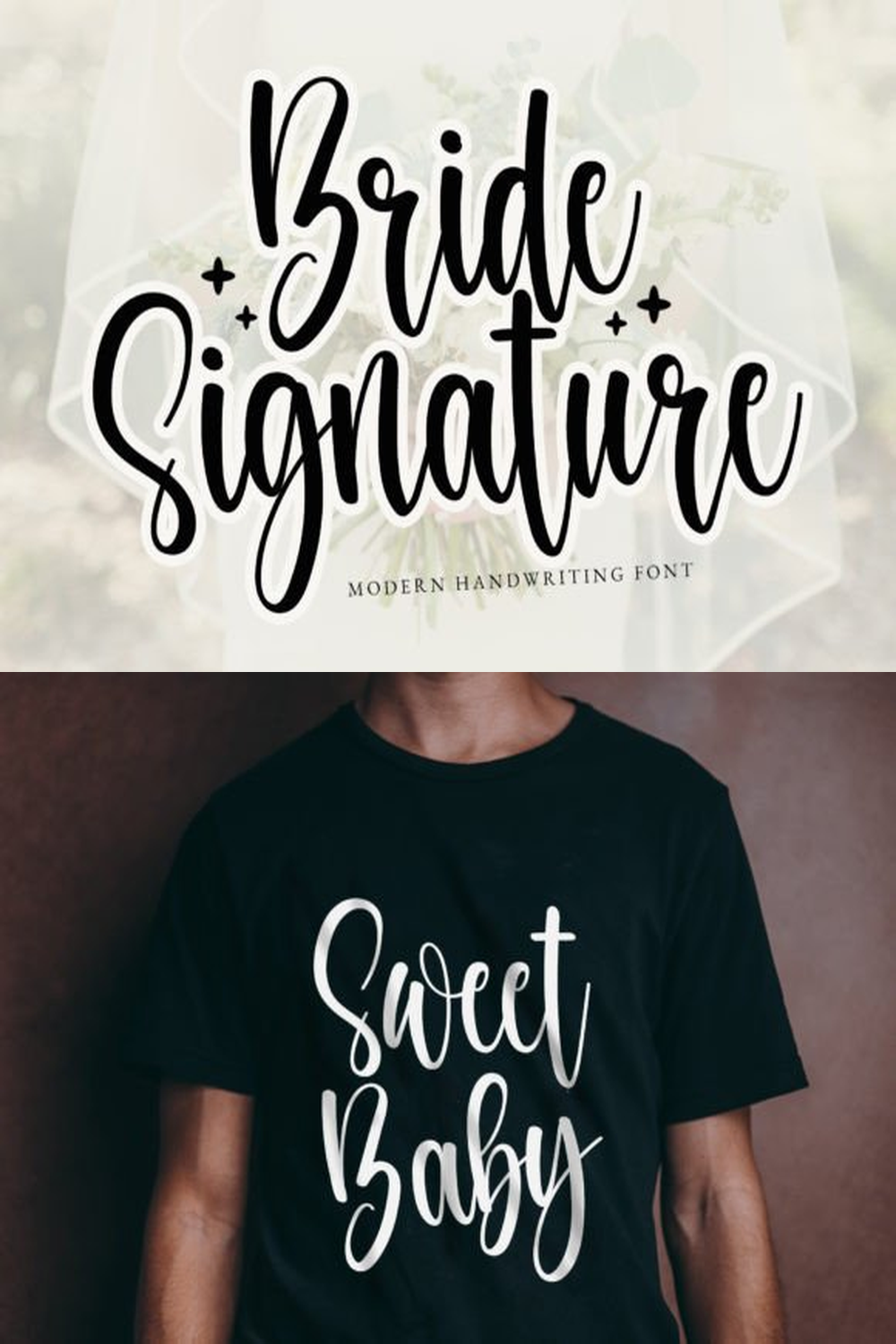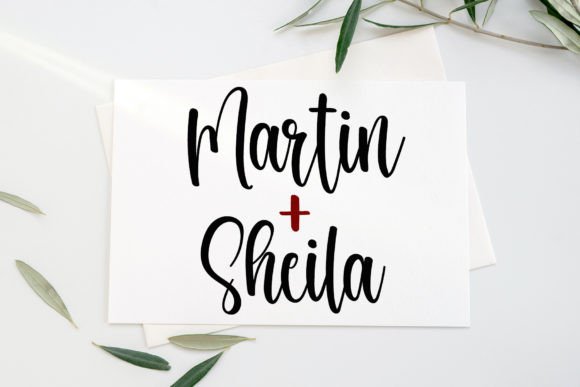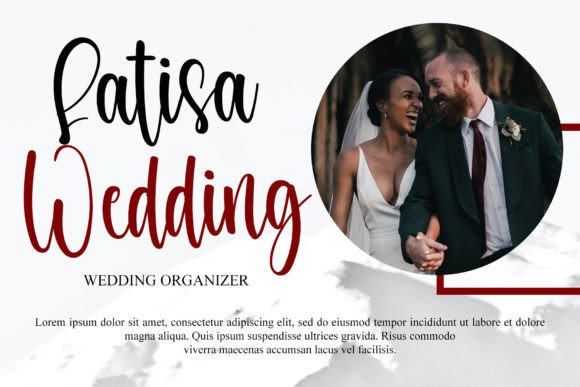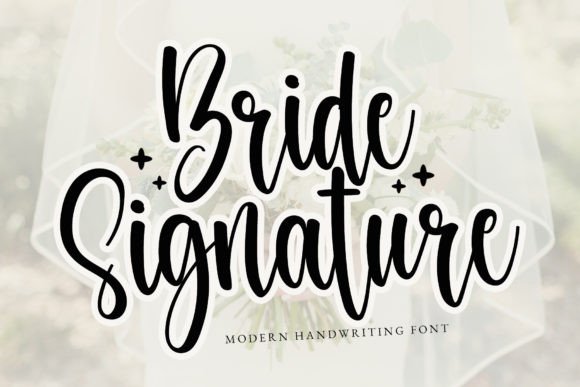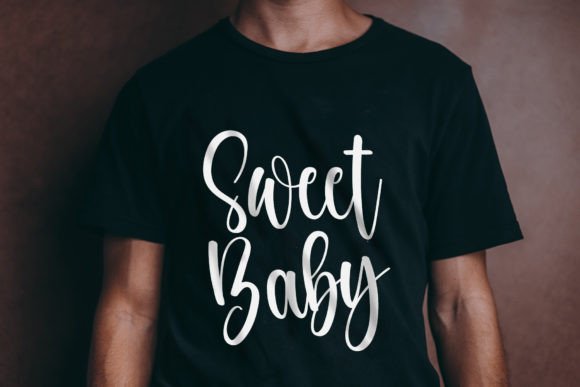
Bride Signature Font
About the Bride Signature Font
The wait is over! The incredible Bride Signature Font is now available for your design toolkit. Bride Signature is a festive and merry typeface that captures the spirit of the holiday season. With its decorative elements and whimsical flair, it adds a touch of enchantment to your designs. Perfect for greeting cards, gift tags, and holiday-themed projects, this font brings a cheerful and nostalgic ambiance to your words.
Bride Signature’s playful energy makes it ideal for projects requiring a lighthearted and festive feel, such as wedding invitations, children’s books, or holiday packaging. Its decorative nature, however, limits its use for body text or UI elements where readability is paramount. Avoid using it for long blocks of text.
This font pairs well with clean sans-serif fonts like Open Sans for a balanced contrast, or a more elegant serif like Playfair Display for a sophisticated feel. For a more whimsical look, consider pairing it with a handwritten script font, but ensure sufficient contrast for legibility.
Its overall personality is best described as charming and celebratory, making it a strong choice for brands focusing on joy, connection, and special occasions.